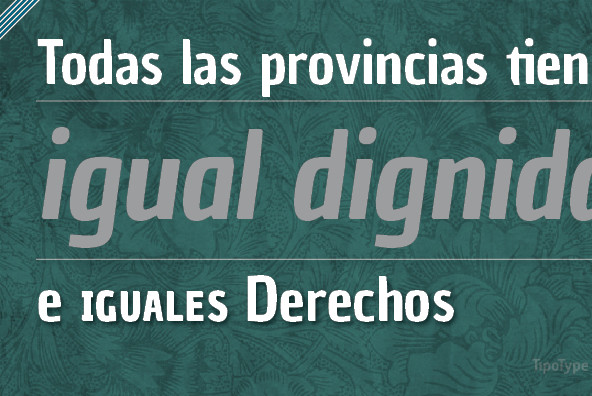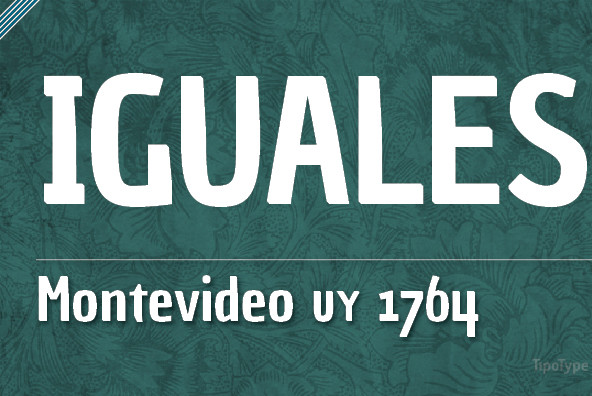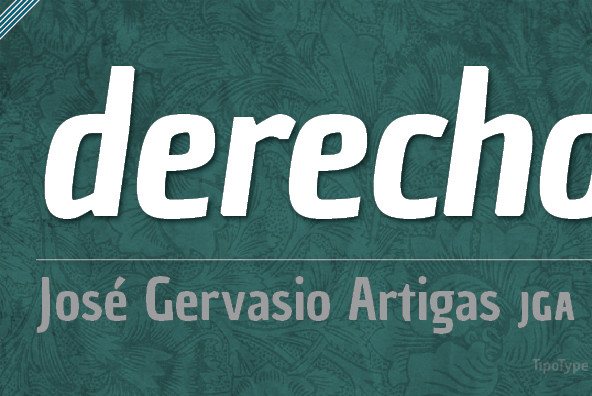
Chau La Madeleine
Foundry: TipoType
La Madeleine is part of the Chau family, is the version sans. These fonts are ideal for headlines. Are condensed and robust: they have impact and saving space.